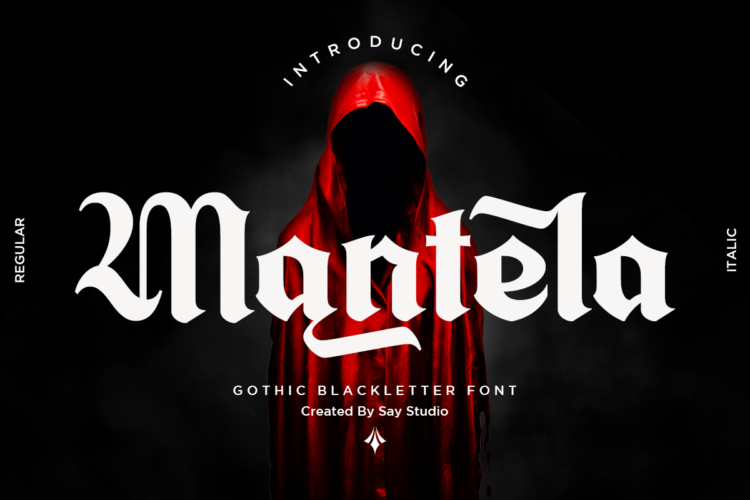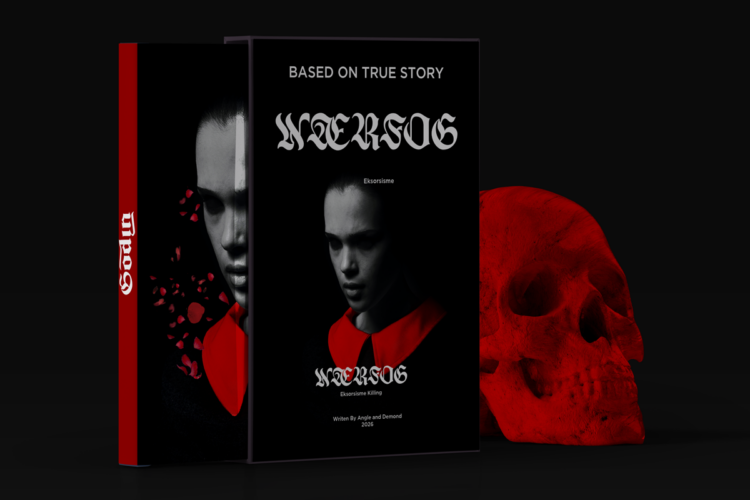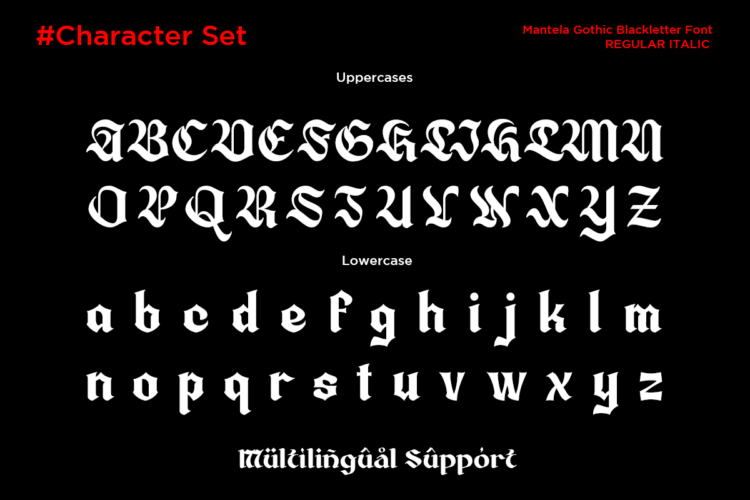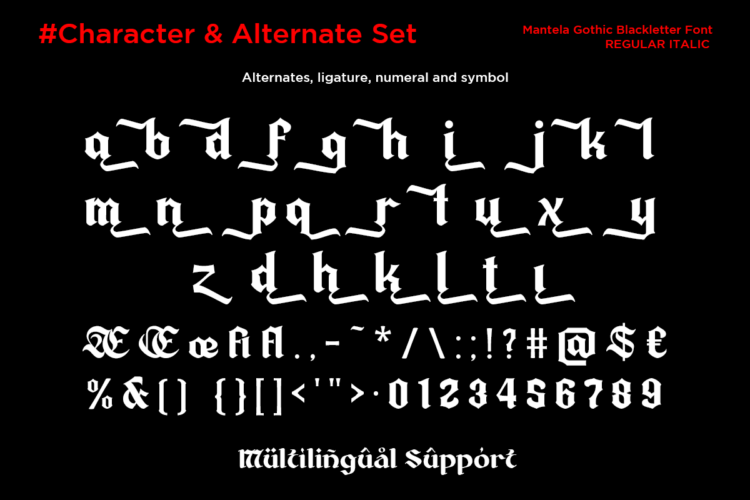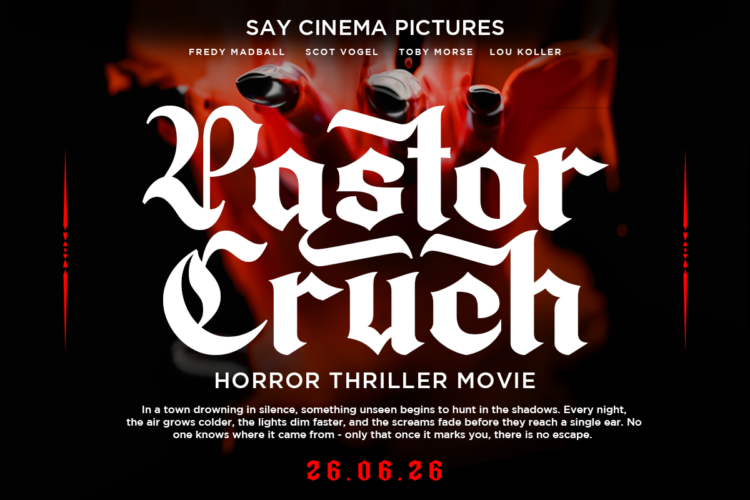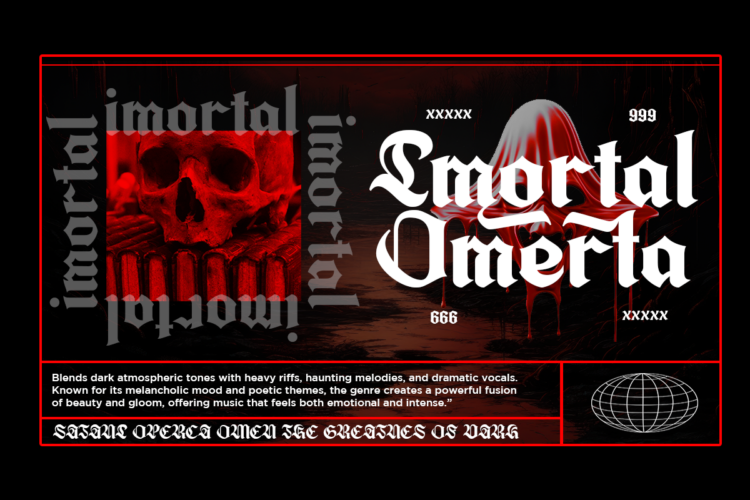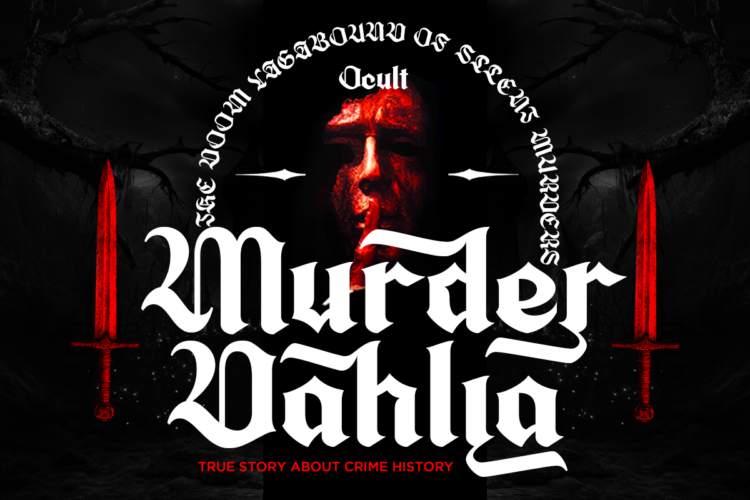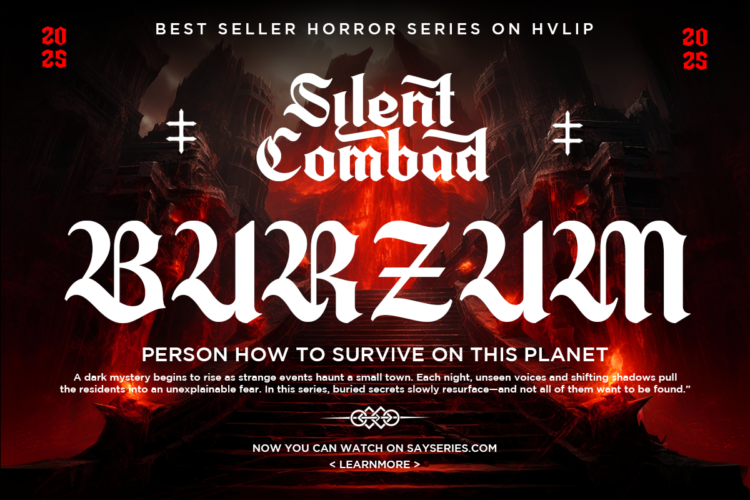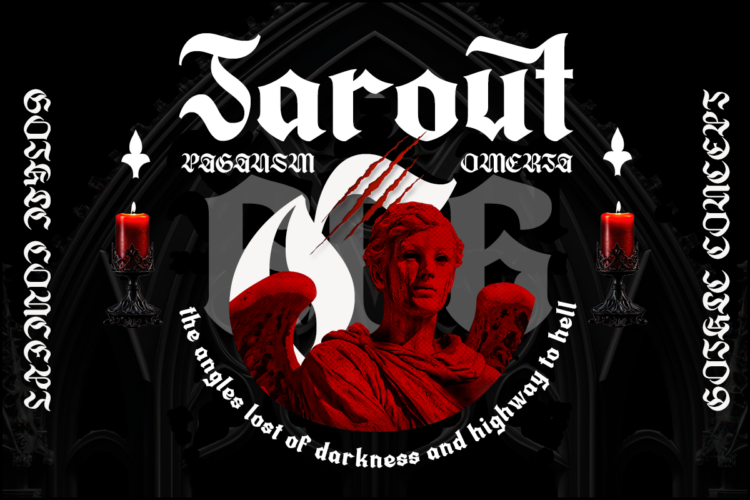
Mantela – Blackletter Font
Mantela is a bold gothic blackletter font crafted to bring dark elegance and dramatic impact into every design. Inspired by medieval calligraphy, gothic architecture, and classic blackletter traditions, Mantela combines sharp angular forms with modern refinement, creating a powerful typeface that commands attention. Complete with regular and italic styles, multilingual support, alternates, ligatures, numerals, and symbols, it delivers both authenticity and versatility.
Designed for creators who embrace bold visual storytelling, Mantela is perfect for horror movie titles, heavy metal album covers, fantasy games, medieval branding, apparel, tattoo studios, posters, book covers, streaming thumbnails, and event promotions. Its distinctive letterforms create unforgettable headlines while preserving excellent readability across both print and digital media.
Whether you’re designing cinematic artwork, gothic logos, occult merchandise, Halloween campaigns, music festivals, or dark editorial layouts, Mantela provides the atmosphere your project deserves. This blackletter font captures the timeless spirit of gothic typography while offering the professional quality and modern functionality needed for today’s creative industry.